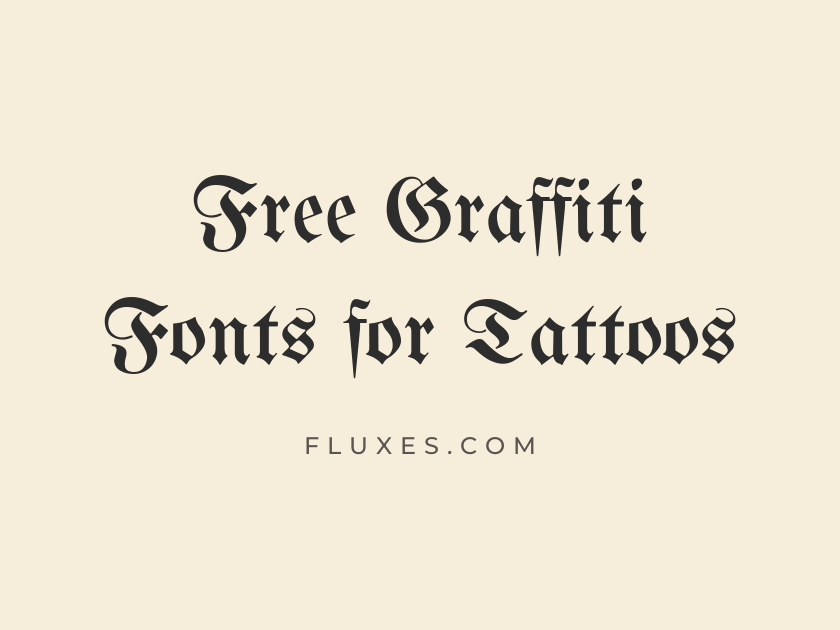
69 Best Free Graffiti Fonts for Tattoos
Graffiti has always been tattoo culture’s closest cousin: both are about bold marks, personal style, and lettering that has to read from across a room or across a sleeve. Finding free graffiti fonts for tattoos on Google Fonts means looking past generic script faces toward anything with grit, drip, stencil texture, or old-world weight, the kind of lettering that looks equally at home spray-painted on brick or inked into skin.
The fonts gathered here span spray-can textures, marker scrawls, gothic blackletter, western woodtype, and chrome-lettered old school flash, giving tattoo artists and designers a wide, genuinely free toolkit for lettering mockups, flash sheets, and stencil work.
1. UnifrakturMaguntia
Ink and bone, bound by old law
Heavy German blackletter with jagged, almost architectural strokes, this is the classic “old English” look tattoo lettering has borrowed for generations. It reads best in short phrases or single words; cram in a paragraph and the dense strokes turn to mush at small sizes.
2. UnifrakturCook
Loyalty carved into every letter
UnifrakturCook
A rounder, slightly friendlier cousin of Maguntia, with broader counters that hold up a touch better in smaller lettering mockups. Still unmistakably gothic, still built for single bold statements rather than body text.
3. Pirata One
No mercy, no regret, no surrender
Lighter on the page than most blackletter, Pirata One trades some of the medieval weight for a leaner, more pirate-flag silhouette. It suits chest-piece banners and single-word tags where you want gothic flavor without the visual heaviness.
4. Uncial Antiqua
Faith, family, and forever after
Uncial Antiqua
Rounded, monastic, and calm compared to sharper blackletter styles, Uncial Antiqua leans Celtic manuscript rather than street corner. It works nicely for memorial pieces and script-adjacent religious lettering that still wants an old, hand-lettered feel.
5. Nosifer
Blood drips, ink stays forever
Nosifer
Dripping, gore-soaked letterforms built for horror flash. This is a novelty font through and through, best reserved for a headline word on a Halloween-themed tattoo sheet rather than anything that needs to be legible in a hurry.
6. Eater
Torn flesh, jagged smile, sharp teeth
Eater
Rough, ragged edges give Eater a zombie-comic energy that suits skull imagery and horror-flash lettering. It pairs well with distressed textures and grungy background art in a mockup.
7. Creepster
Come closer if you dare
Probably the most recognizable free horror display font on Google Fonts, with drippy, slightly cartoonish menace. It has been used everywhere from Halloween posters to spooky tattoo flash, so it reads as instantly familiar rather than obscure.
8. Butcherman
Cut deep, stitched back together
Torn, grungy strokes that look hacked rather than drawn. Good for slasher and horror-themed lettering; avoid it for anything that needs a clean, professional finish.
9. Metal Mania
Loud, fast, and inked forever
Metal Mania
Sharp, angular, and built for thrash band logos, Metal Mania brings genuine metal-scene energy to tattoo lettering projects. It is a strong pick for music-themed sleeves and anyone chasing that specific heavy metal aesthetic.
10. Ewert
Rough edges, honest ink
Ewert
Blocky and slightly worn, as if stamped rather than typeset. It has a weathered, hand-cut charm suited to rustic or outlaw-themed lettering.
11. Vast Shadow
Old glory, older grudges
A bold slab with a long cast shadow built right into the letterforms, giving it an instant vintage banner feel. It works well for flag-style tattoo lettering and old sailor-flash headers.
12. Bangers
POW! Inked and proud forever
Loud, comic-book bold with a slight backward lean that gives it real punch. Bangers is a natural fit for pop-art tattoo flash, onomatopoeia lettering, and anything meant to shout rather than whisper.
13. Boogaloo
Ride slow, live loud today
Bouncy and rounded with a retro surf-shop charm. It softens the aggression usually associated with graffiti lettering, making it a good choice for lighthearted, playful tattoo flash rather than hard street style.
14. Titan One
Bold ink, bigger statement
Thick, rounded, almost inflated letterforms give Titan One a bubble-graffiti tag look straight off a subway car. Its chunkiness makes it read clearly even from a distance, which is exactly what a bold tattoo banner needs.
15. Luckiest Guy
Nothing to lose, everything to prove
Marker-drawn and slightly wobbly, this one has the energy of a hand-painted sign rather than a precision typeface. It suits casual, confident tattoo lettering that wants personality over polish.
16. Fugaz One
Fast hands, faster reputation
Fugaz One
Angled and italicized with real forward motion, Fugaz One feels built for speed. It is a strong choice for sports, racing, or hustle-themed lettering where the letters themselves suggest movement.
Whatever the direction, downloading a few contrasting styles and testing them side by side against real reference art is the fastest way to see which free graffiti font actually earns its place on skin.
Graffiti-inspired tattoo lettering thrives on contrast: rough against clean, drippy against structured, gothic against playful. With this many free, genuinely street-flavored options available on Google Fonts, there is no need to reach for a paid font just to get authentic tag, stencil, or old school flash lettering into a design.